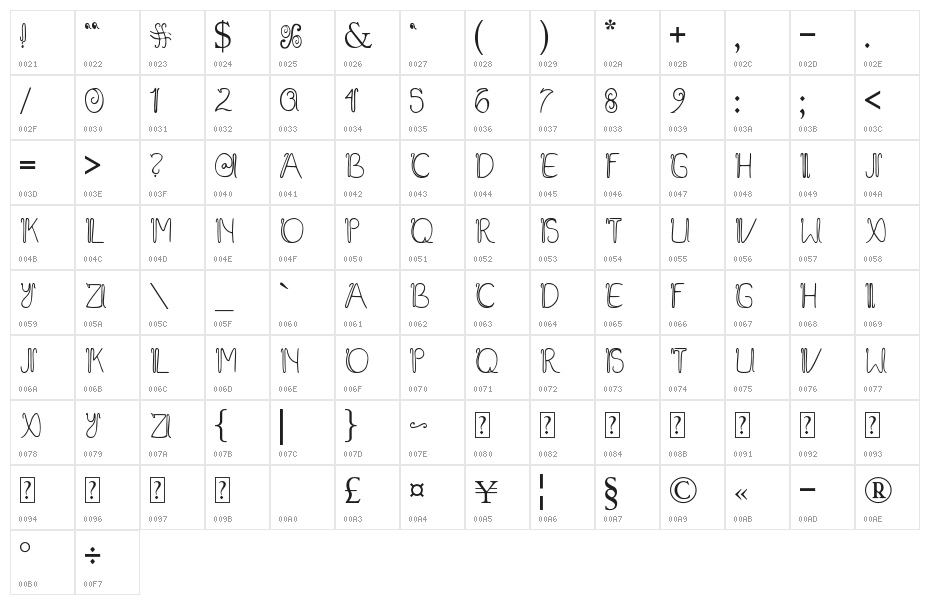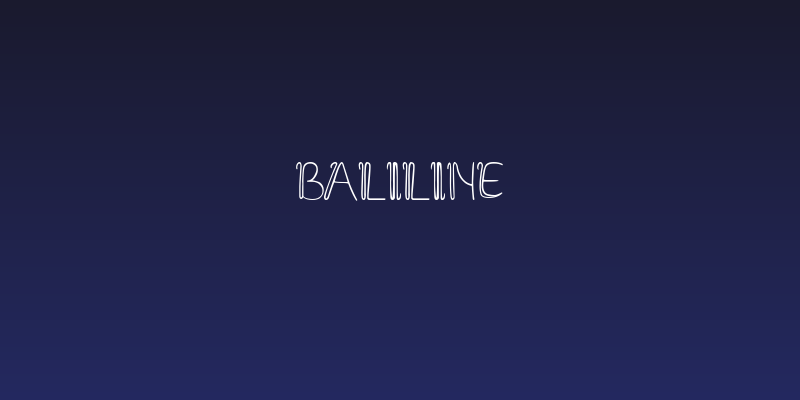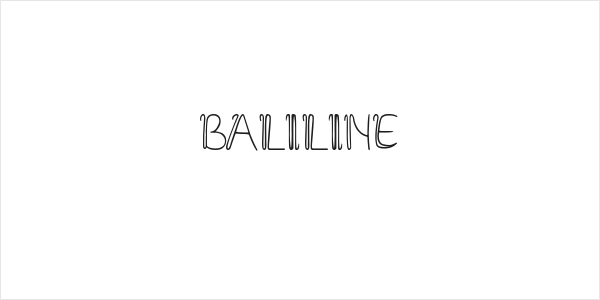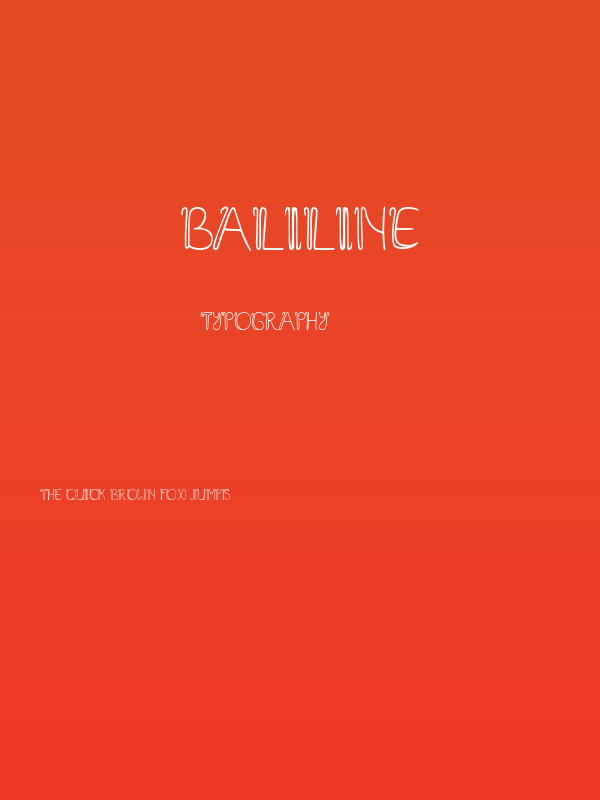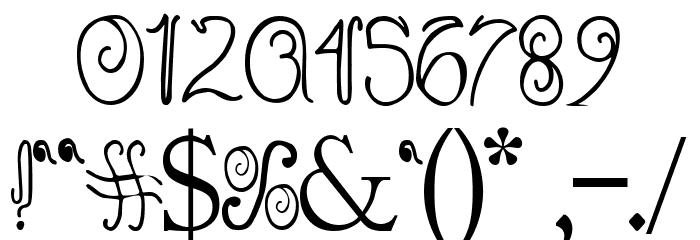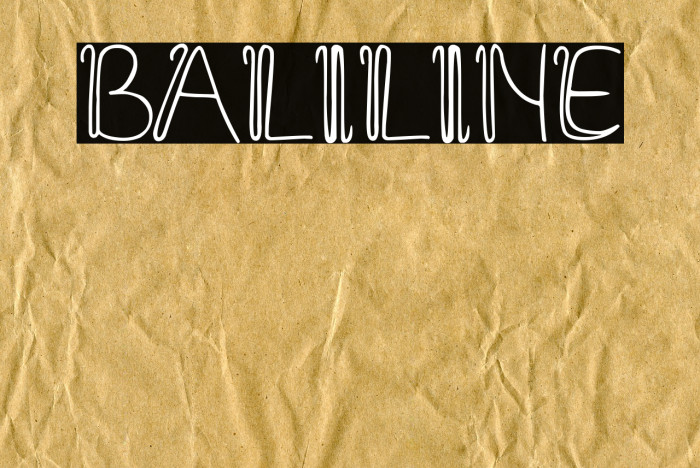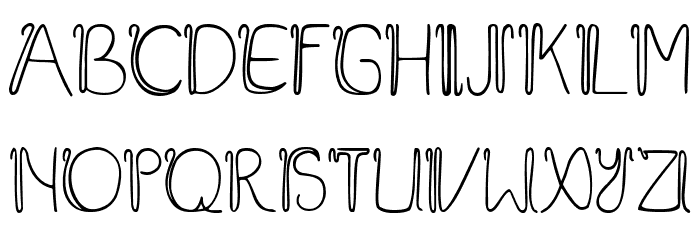
Baliline Font
Baliline Description
This font features a unique and playful design with a handwritten style that incorporates both elegance and whimsy. The characters are elongated and slender, with a slight curl at the ends, giving them a distinct and artistic flair. The uppercase letters maintain a consistent height, while the lowercase letters exhibit a charming irregularity that adds to the font's personality. The numbers are equally stylized, with a mix of curves and straight lines that create a harmonious balance. Special characters are creatively designed, enhancing the font's overall appeal.